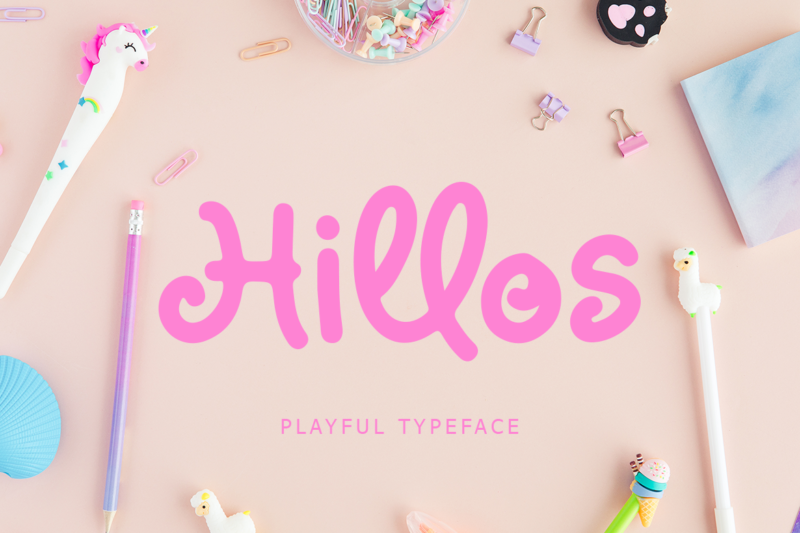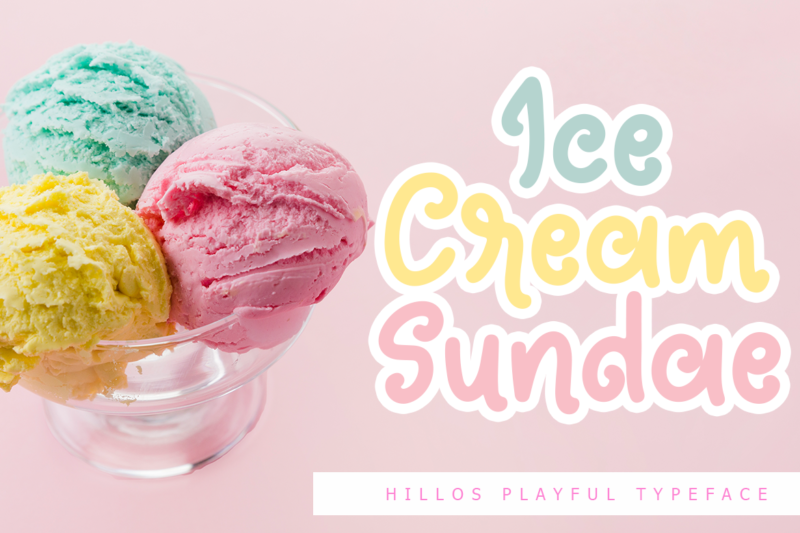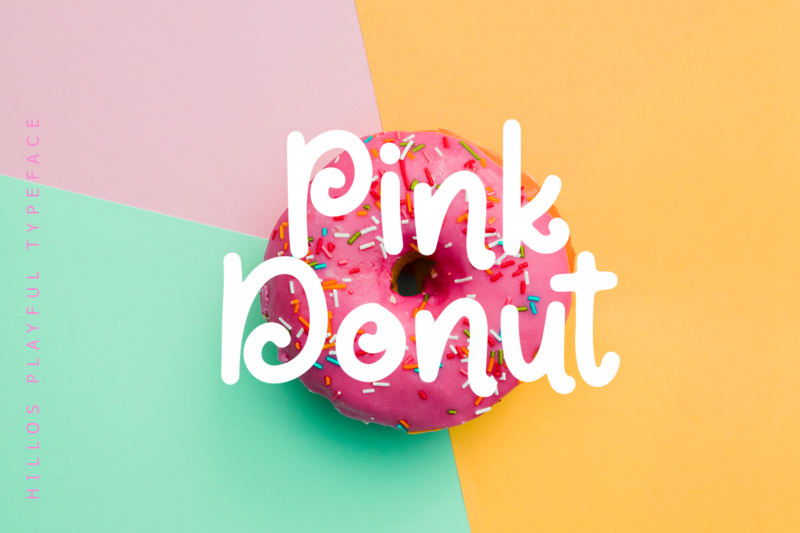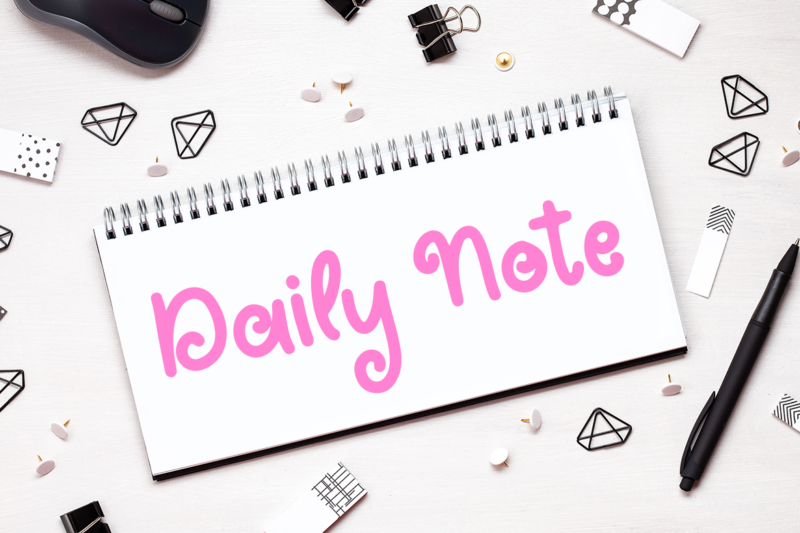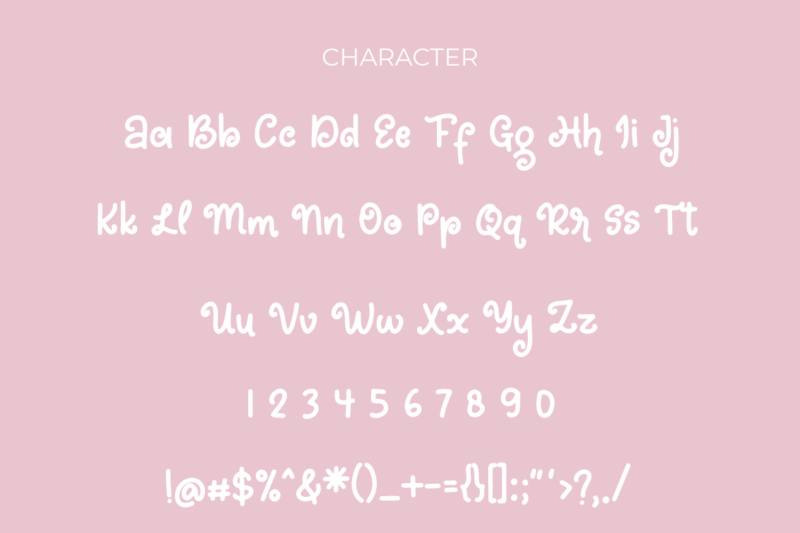
Hillos Font
Hillos is a playful handwritten font with combining the cute style of calligraphy with a more modern style.
Hillos is perfect for branding projects, logo, wedding designs, social media posts, advertisements, product packaging, tshirt design, product designs, label, photography, watermark, invitation, stationery and any projects.